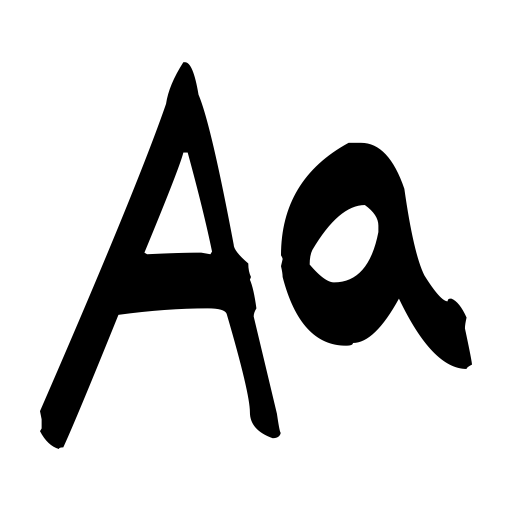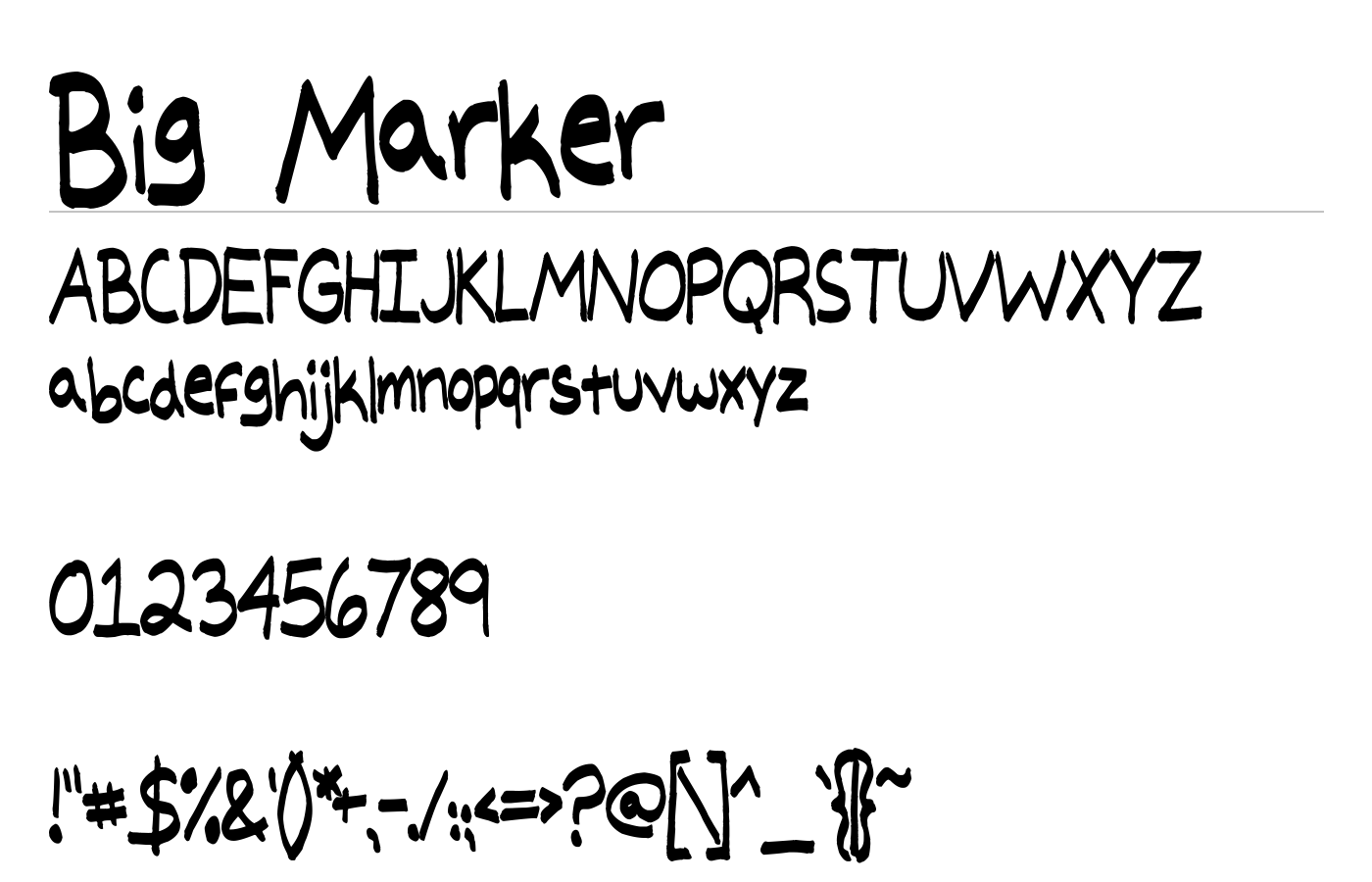
Big Marker is a playful, hand-drawn sans serif font that mimics the texture and irregularity of writing with a thick marker. Its informal, casual style with uneven strokes and quirky letter shapes makes it perfect for fun, creative projects, kids' designs, or anything needing a friendly, approachable feel. This font works well in headlines, posters, or branding where a personal, handmade touch is desired.
Big Marker Font
About Big Marker Font